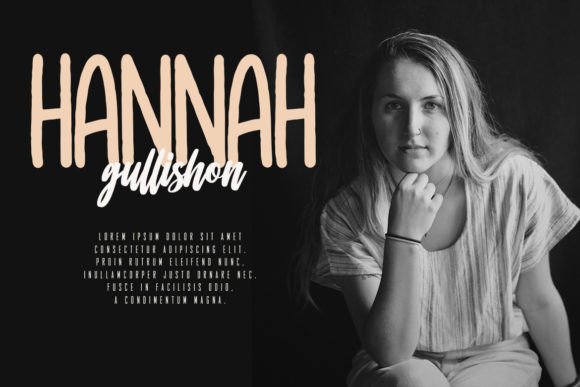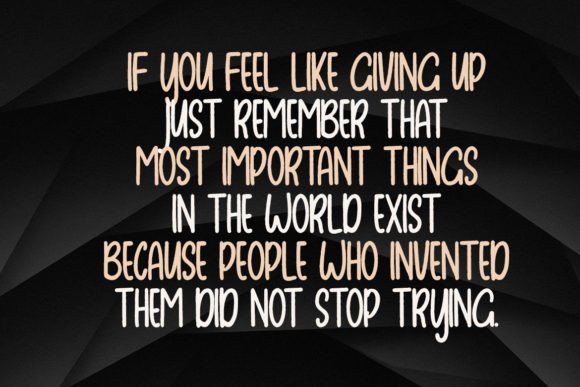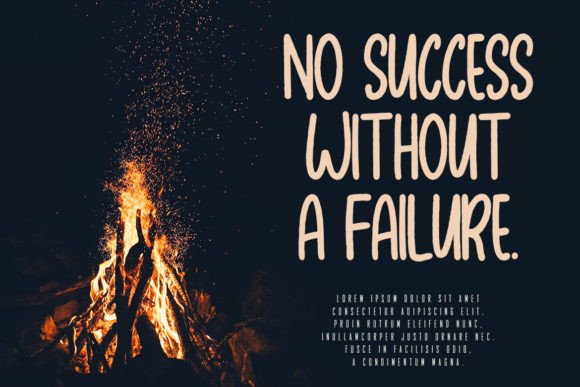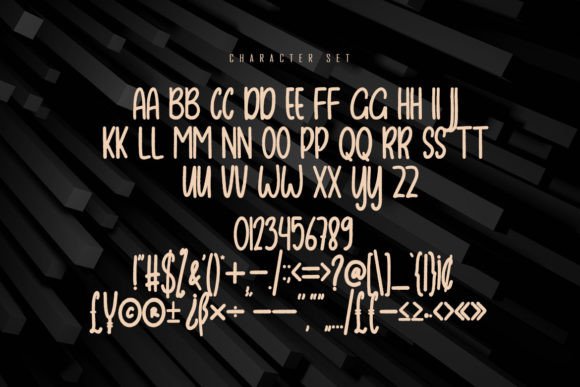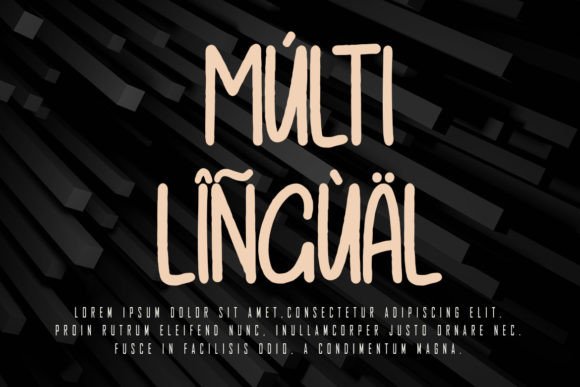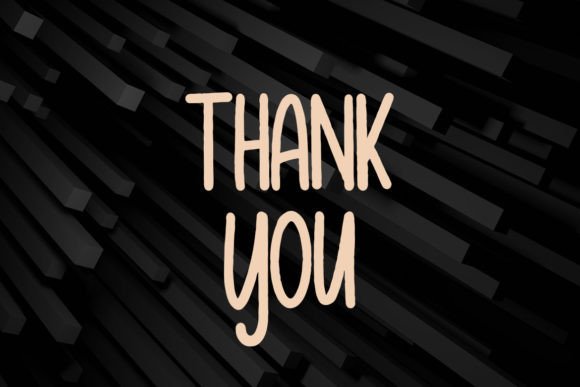
Eranity Font
About Eranity Font
Eranity font is a playful handwritten typeface designed to bring style and character to your creative projects. When you download Eranityfont, you get a versatile and dynamic font that enhances headlines, logos, and branding with a confident and modern flair.
Stylish and Playful Handwritten Design
Eranityfont stands out with its lively, handcrafted strokes that inject energy into your designs.Download Eranityfont to elevate your projects with a unique, dynamic style.
Ideal for Headlines and Logotype Projects
This font is perfect for attention-grabbing headlines and branding projects where you want to communicate confidence and creativity. Eranity font’s bold and stylish look adds visual impact, helping your message stand out in both digital and print formats.
Versatility Across Creative Uses
Eranityfont fits well with various design purposes, from posters and social media graphics to product packaging and advertising materials. Download Eranityfont easily and integrate it seamlessly into your favorite design software.
Elevate Your Font Collection
Add Eranityfont to your font library to enjoy a playful yet professional handwritten typeface. Whether you’re working on bold branding or fun creative projects, this font offers the perfect balance of character and style.